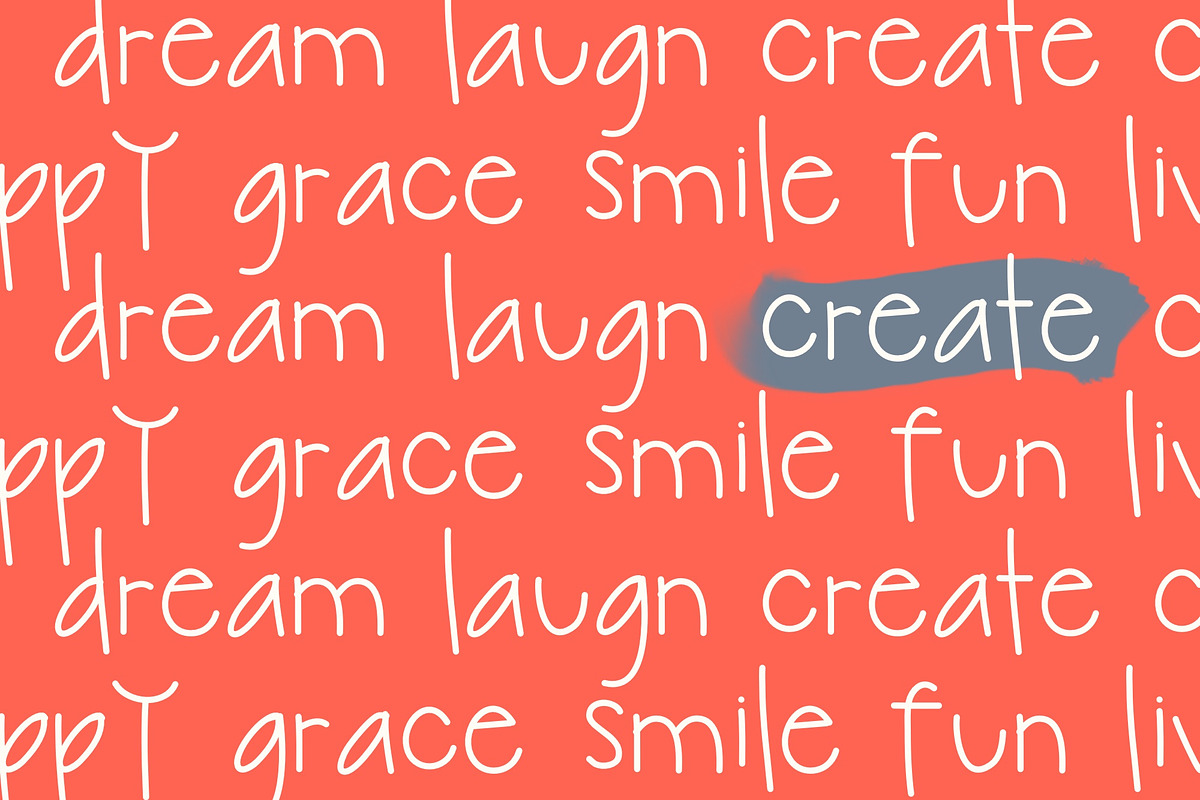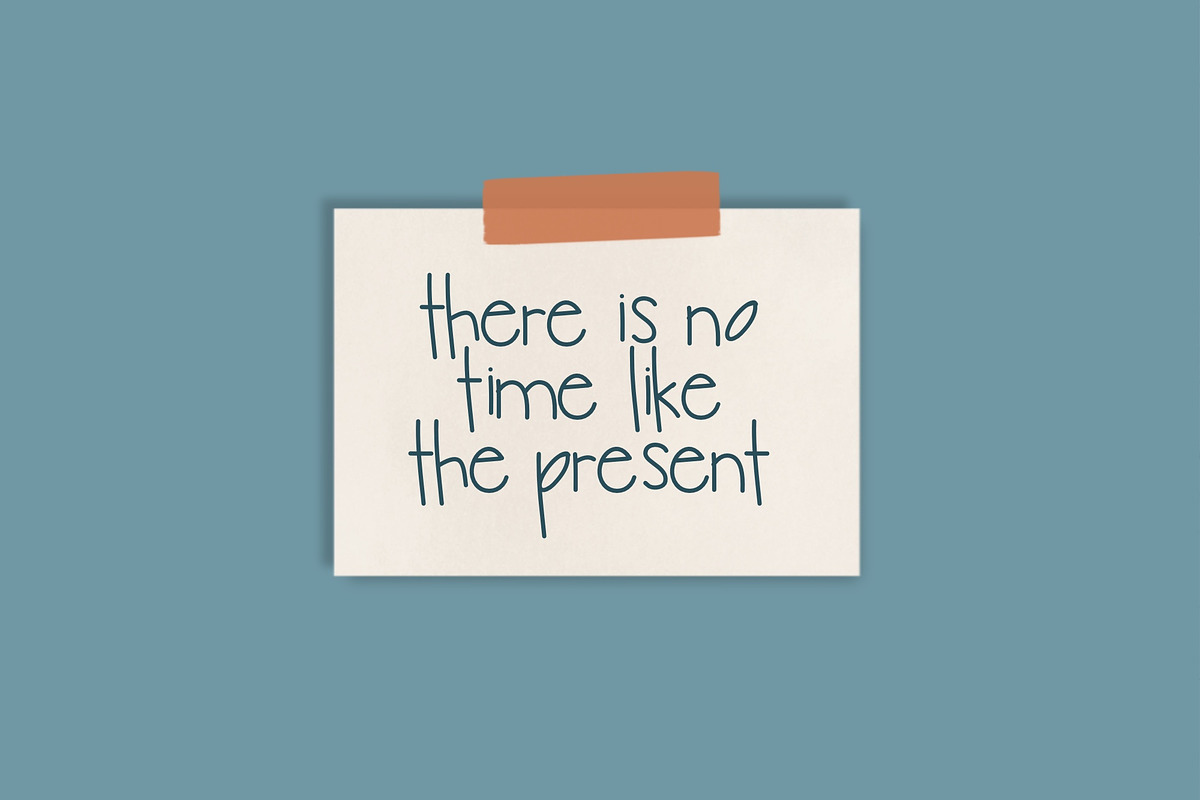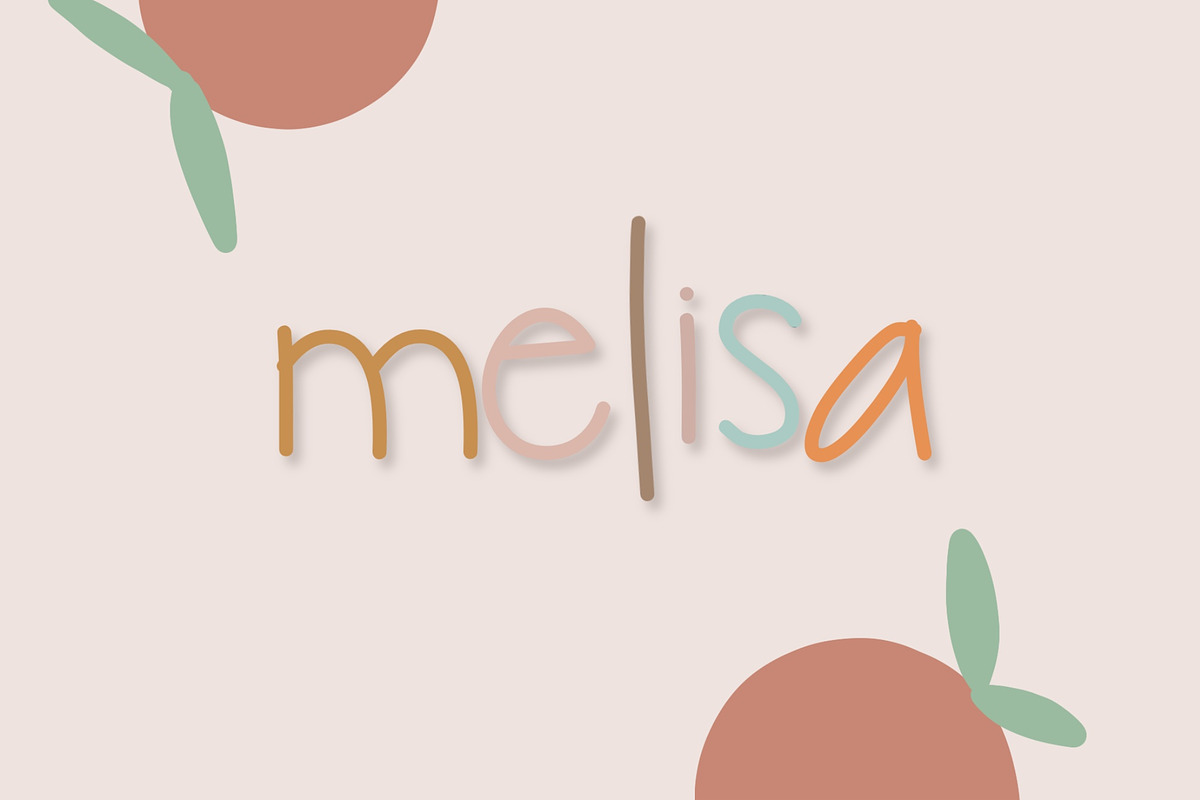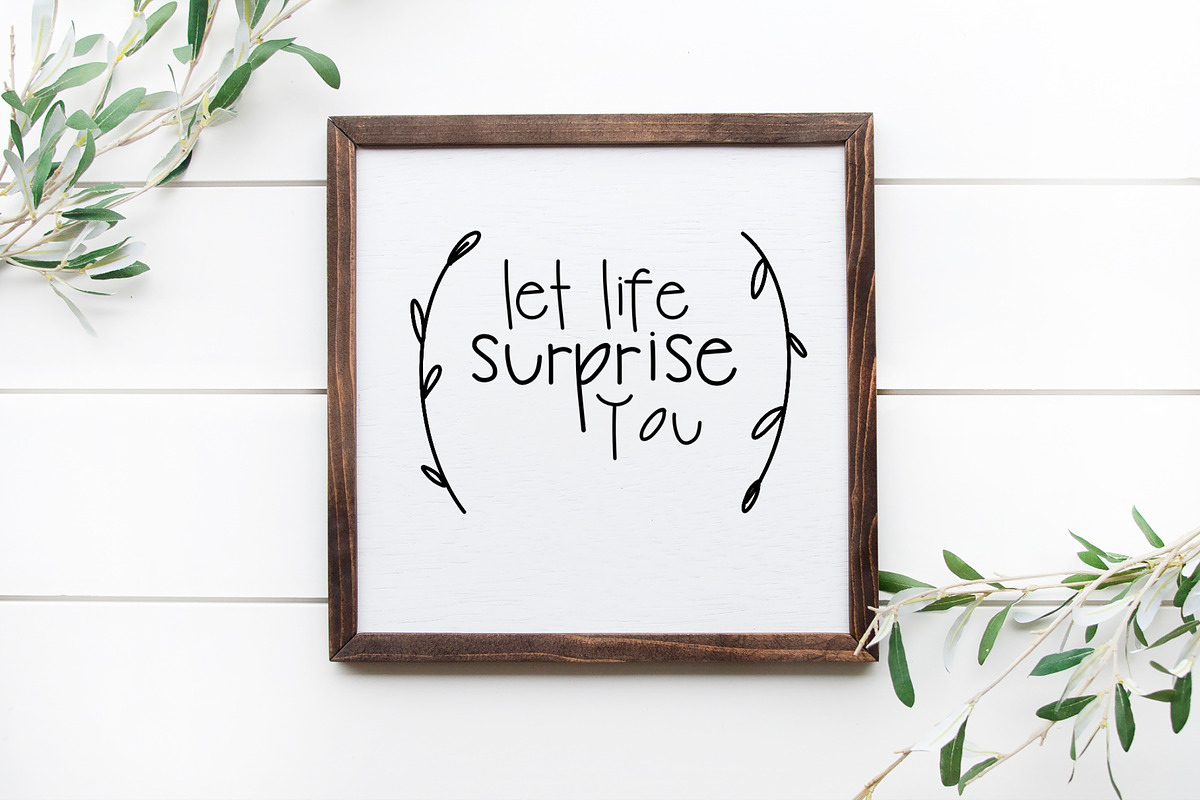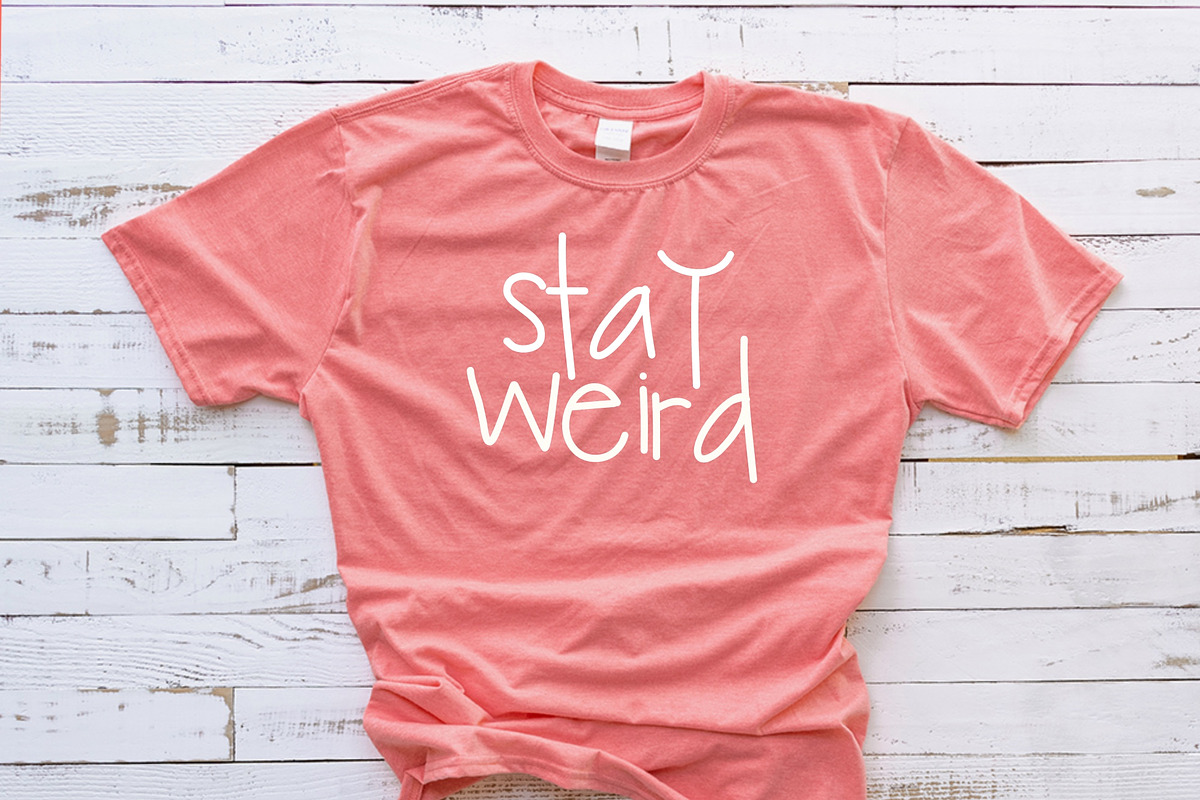
Melisa Font
Melisa Font by Fonts & Printables is a font selected for branding, posters, packaging, typography.
Why Melisa Font is worth a look
Melisa Font by Fonts & Printables fits naturally into Branding, posters, packaging, typography.